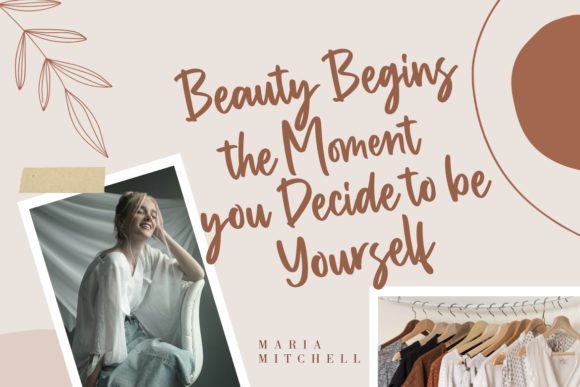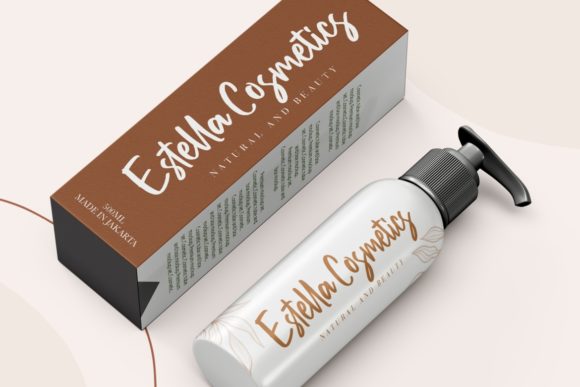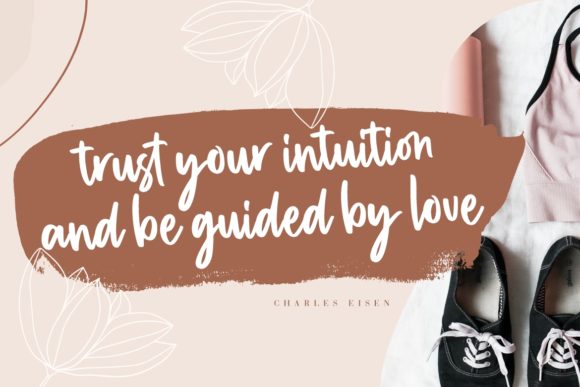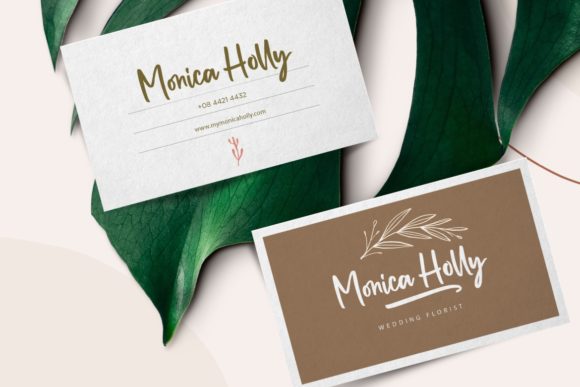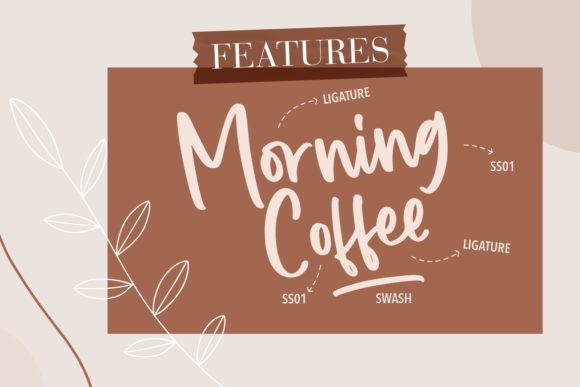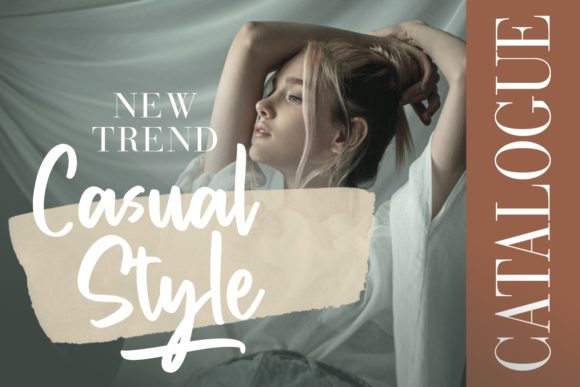
Garry Shelby Font: Elevate Your Designs with a Casual and Stylish Handwritten Touch
Are you looking for a font that can add a personal touch to your designs? Look no further than the Garry Shelby font. This casual and stylish handwritten font is perfect for a wide range of projects, from branding and logos to wedding designs and social media posts. In this article, we’ll explore the features and benefits of the Garry Shelby font, and show you how it can take your designs to the next level.
A Versatile Font for a Wide Range of Projects
Garry Shelby is a versatile font that can be used for a variety of projects. Its casual and stylish handwritten design makes it perfect for:
- Branding projects: Create a unique and memorable brand identity with Garry Shelby.
- Logos: Add a personal touch to your logos and make them stand out.
- Wedding designs: Create beautiful wedding invitations, decorations, and other materials with Garry Shelby.
- Social media posts: Add a touch of personality to your social media posts and make them more engaging.
- Advertisements: Create eye-catching ads that grab attention and leave a lasting impression.
- Product packaging: Add a personal touch to your product packaging and make it more appealing to customers.
- Product designs: Create beautiful product designs that showcase your brand’s personality.
- Labels: Create custom labels that add a touch of personality to your products.
- Photography: Use Garry Shelby as a watermark or overlay to add a touch of elegance to your photos.
- Invitations: Create beautiful invitations for any occasion with Garry Shelby.
- Stationery: Add a personal touch to your stationery and make it more unique.
PUA Encoded for Easy Access to Glyphs and Swashes
One of the best features of the Garry Shelby font is that it is PUA (Private Use Area) encoded. This means that you can access all of the glyphs and swashes with ease, giving you even more creative freedom and flexibility. With PUA encoding, you can:
- Access a wide range of glyphs and swashes to add a personal touch to your designs.
- Customize your designs with ease and make them more unique.
- Save time and effort by having all of the glyphs and swashes at your fingertips.
Why Choose Garry Shelby Font?
So why choose the Garry Shelby font for your designs? Here are just a few reasons:
- Unique and memorable: Garry Shelby is a unique and memorable font that will make your designs stand out.
- Versatile: Garry Shelby can be used for a wide range of projects, from branding and logos to wedding designs and social media posts.
- Easy to use: Garry Shelby is PUA encoded, making it easy to access all of the glyphs and swashes.
- High-quality: Garry Shelby is a high-quality font that will give your designs a professional finish.
In conclusion, the Garry Shelby font is a casual and stylish handwritten font that is perfect for a wide range of projects. Its versatility, ease of use, and high-quality design make it a great choice for designers and crafters. Whether you’re looking to create a unique brand identity, add a personal touch to your designs, or simply want to try something new, Garry Shelby is a great choice. So why not give it a try and see how it can elevate your designs?
- Casual and stylish handwritten font.
- Perfect for branding projects, logos, wedding designs, social media posts, and more.
- PUA encoded for easy access to glyphs and swashes.
- High-quality design.
- Easy to use.